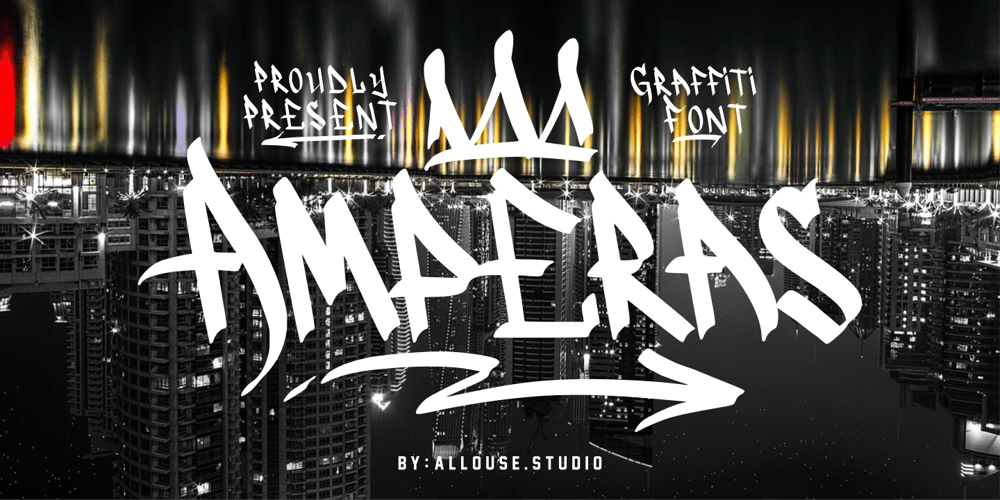
Amperas
Amperas font
Amperas Font Family was designed by Fachrizal Yusuf and published by Allouse Studio. Amperas contains 1 styles and family package options. Amperas is a Graffiti Font. Amperas is perfect for product packaging, branding project, megazine, social media, wedding, or just used to express words above the background.Amperas also come with extras graffiti elements and underline style for your need to make them realistic. This font also come with multilingual support.Enjoy the font, feel free to comment or feedback, send me PM or email.